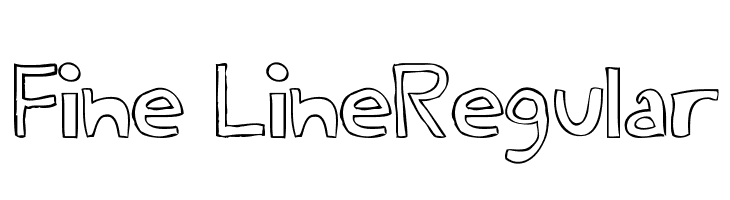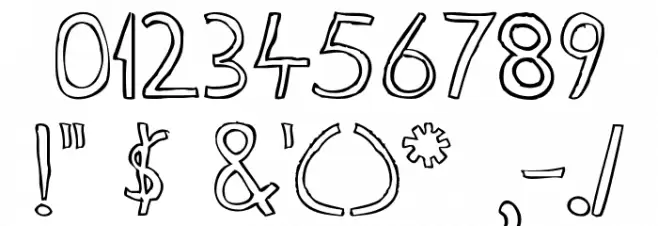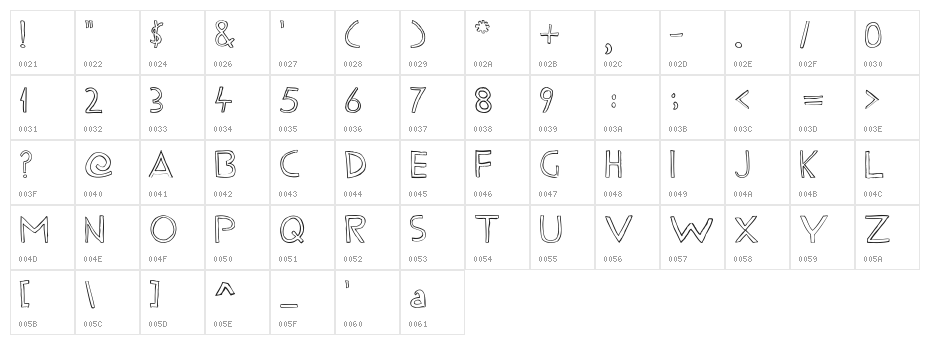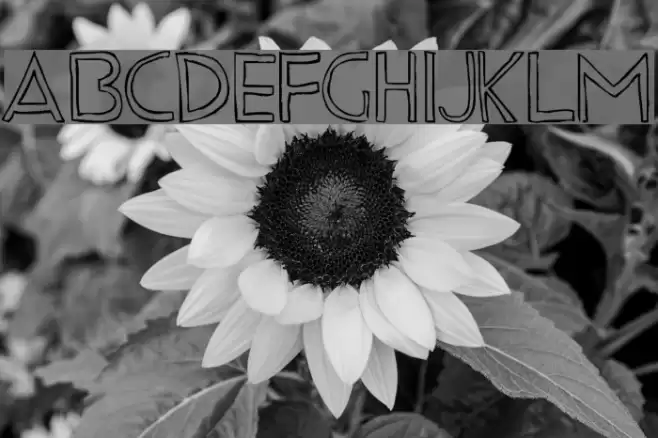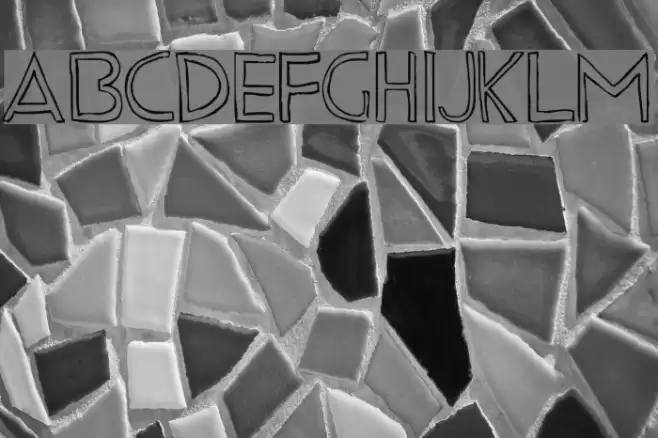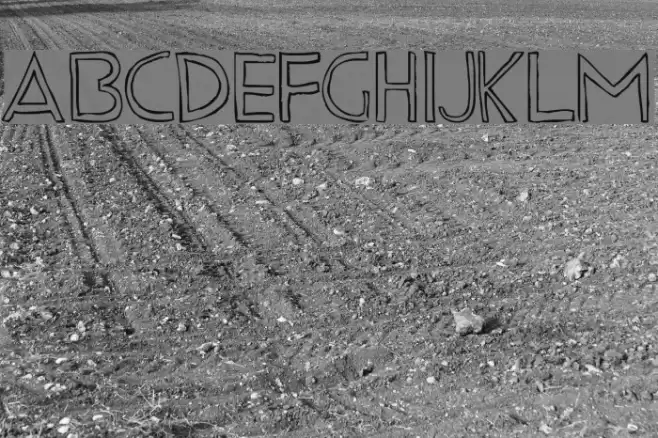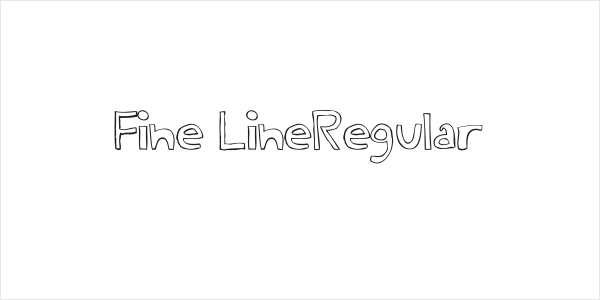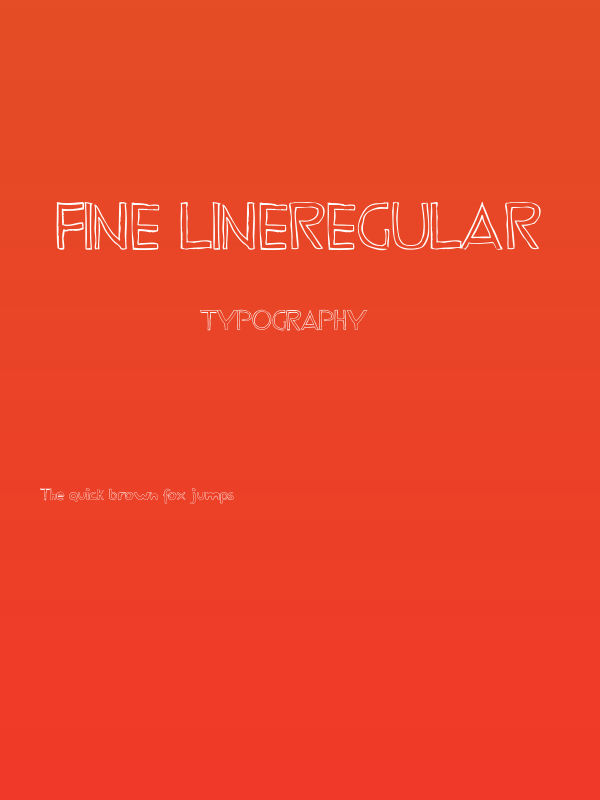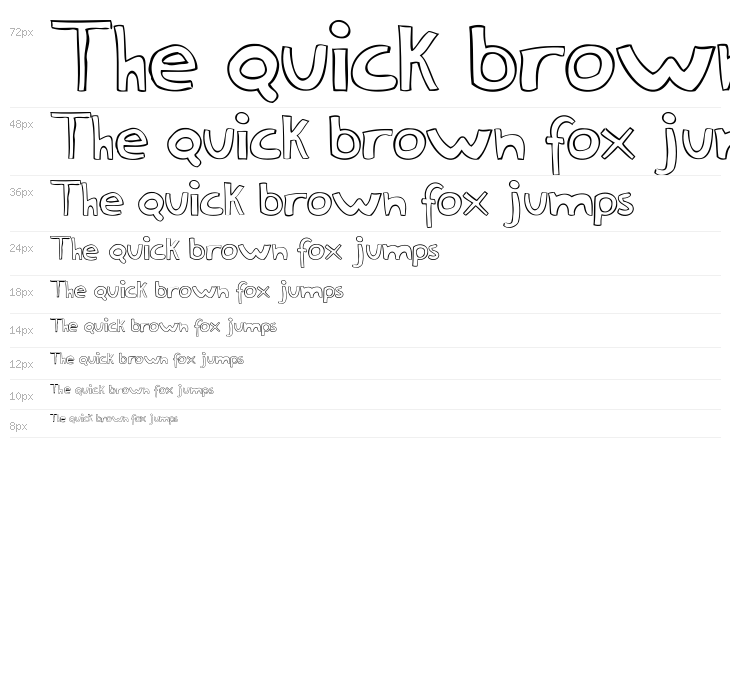
Fine LineRegular Font
Fine LineRegular Description
This font features a playful and artistic design with a hand-drawn aesthetic. Each character is outlined with a fine line, giving it a sketch-like appearance. The uppercase letters are bold and slightly irregular, adding a whimsical touch. Lowercase letters maintain a consistent style, with rounded edges and a casual feel. Numbers and special characters follow the same artistic theme, making the font suitable for creative projects. The overall look is unique and eye-catching, perfect for designs that require a personal and informal touch.
| Proposed Projects | Ideal for children's books, creative posters, greeting cards, and artistic branding. |